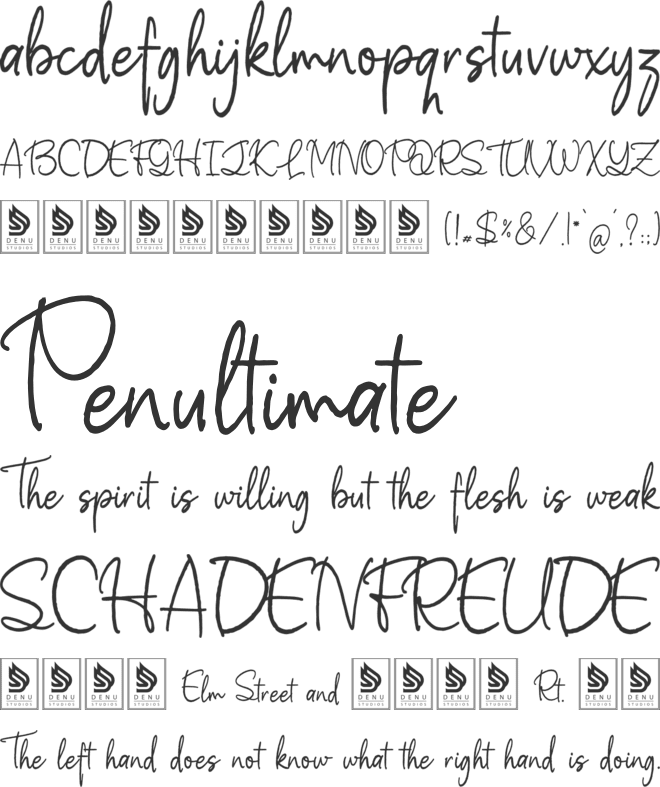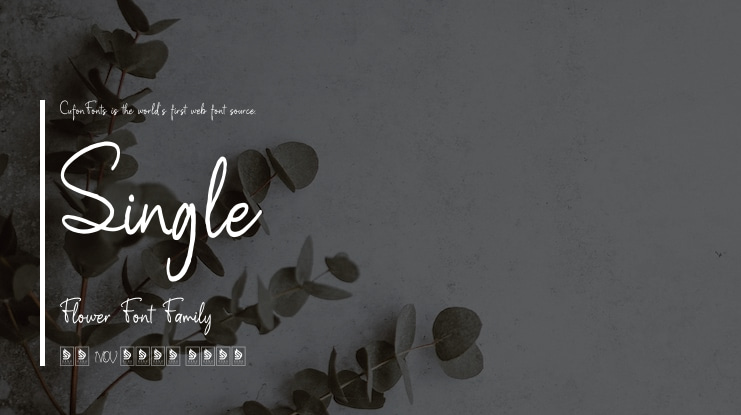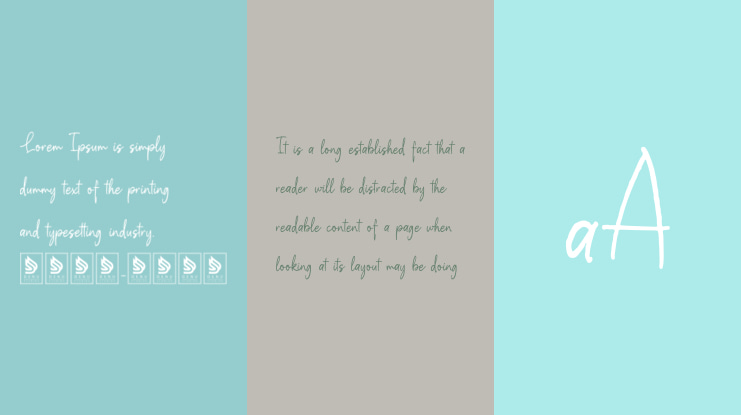
Single Flower Font
Single Flower | Script Handwritten product packaging, mugs, quotes, posters, shopping bags, t-shirts, book covers, name card, invitation cards, greeting cards, label, photography, watermark, special events, and all your other lovely projects that need a Script Handwritten taste.